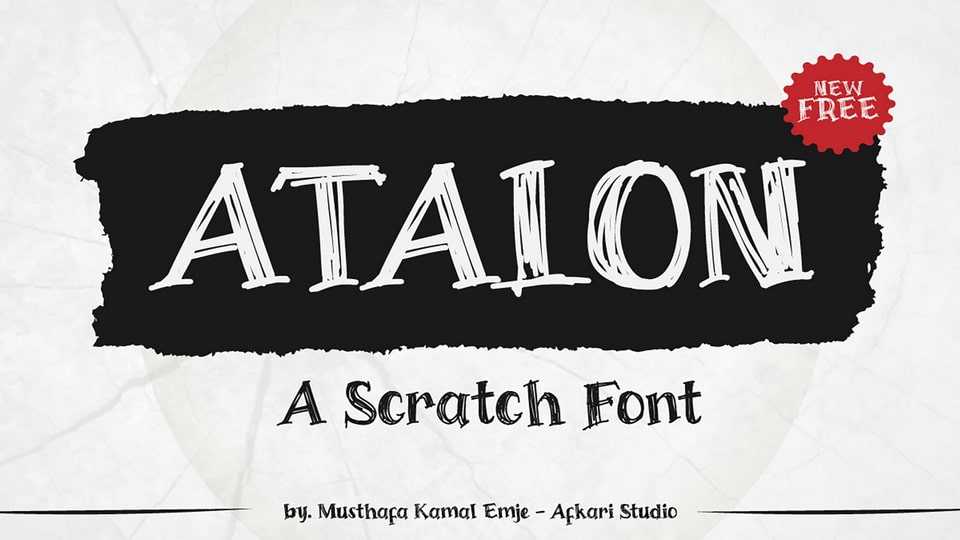
Download Atalon font, a scratch typeface made in frantically handwritten style. Atalon is written freely and with a special balanced look, like an authentic hand lettered font.